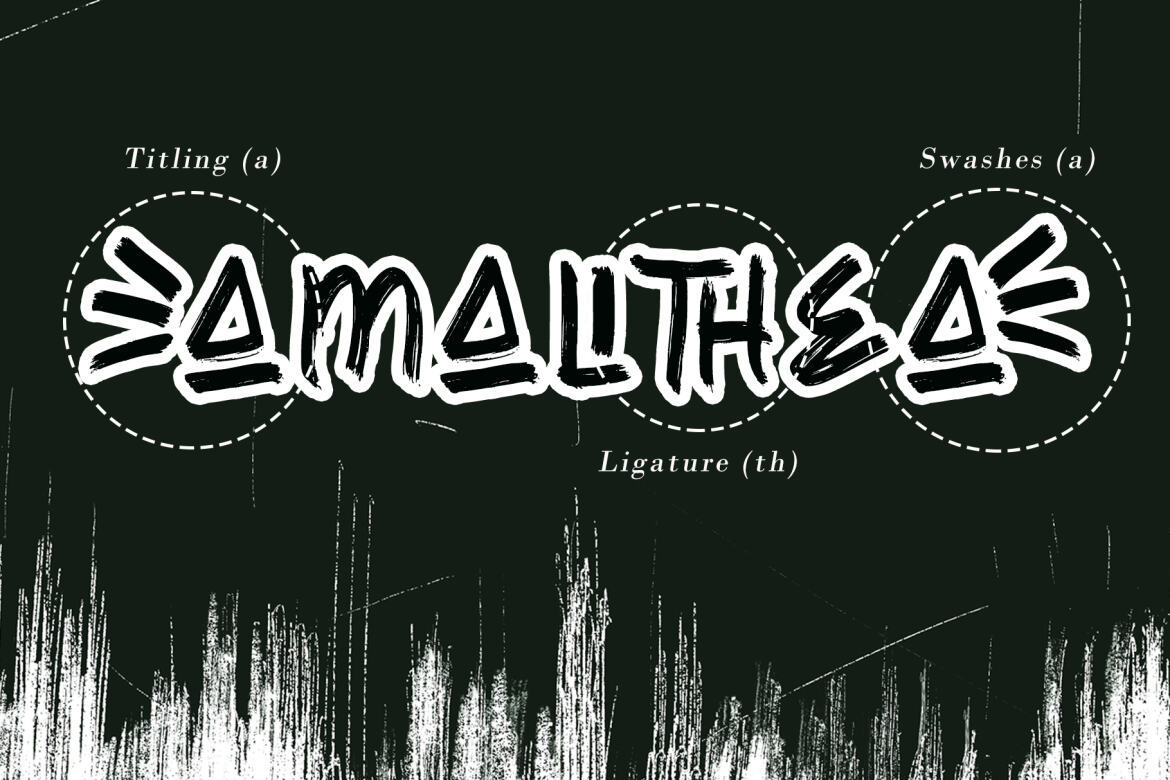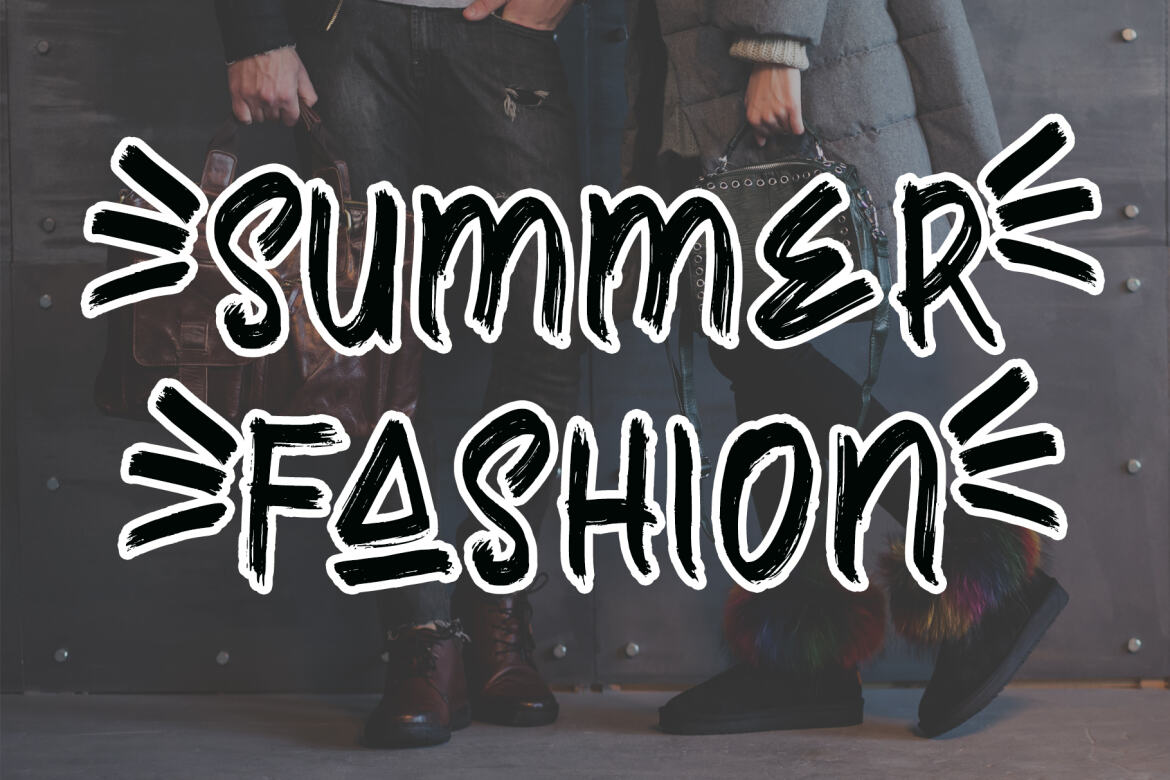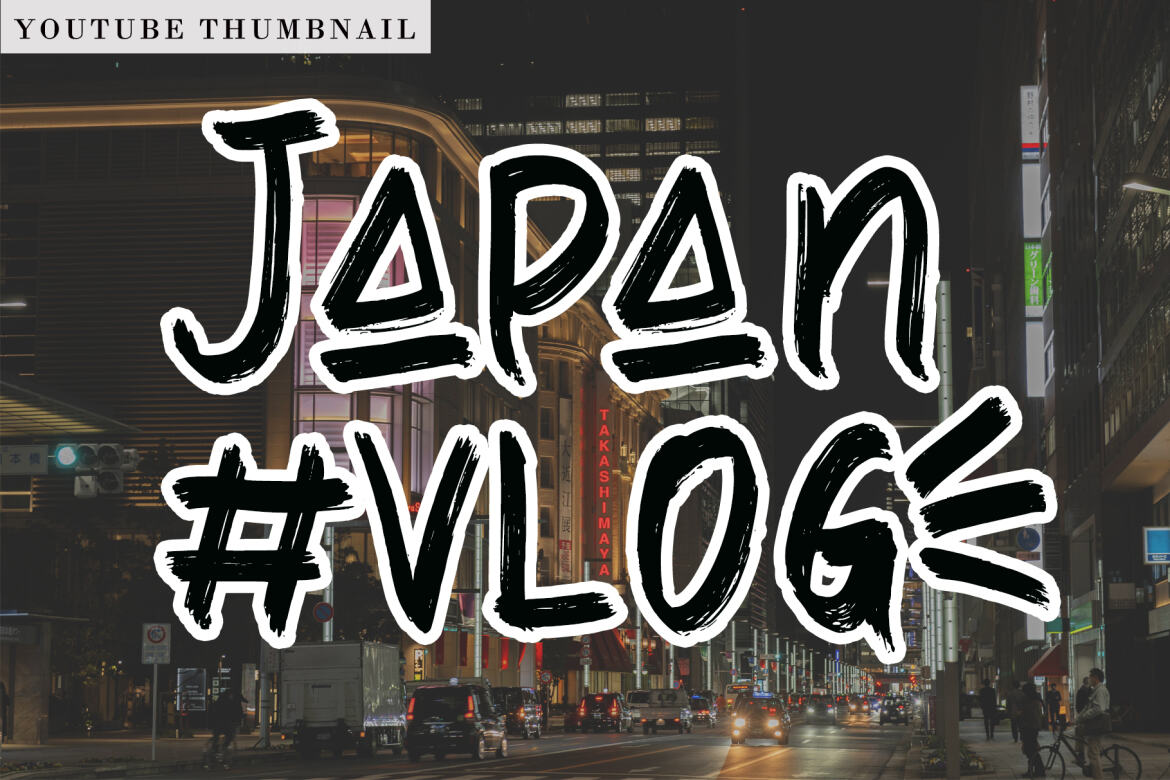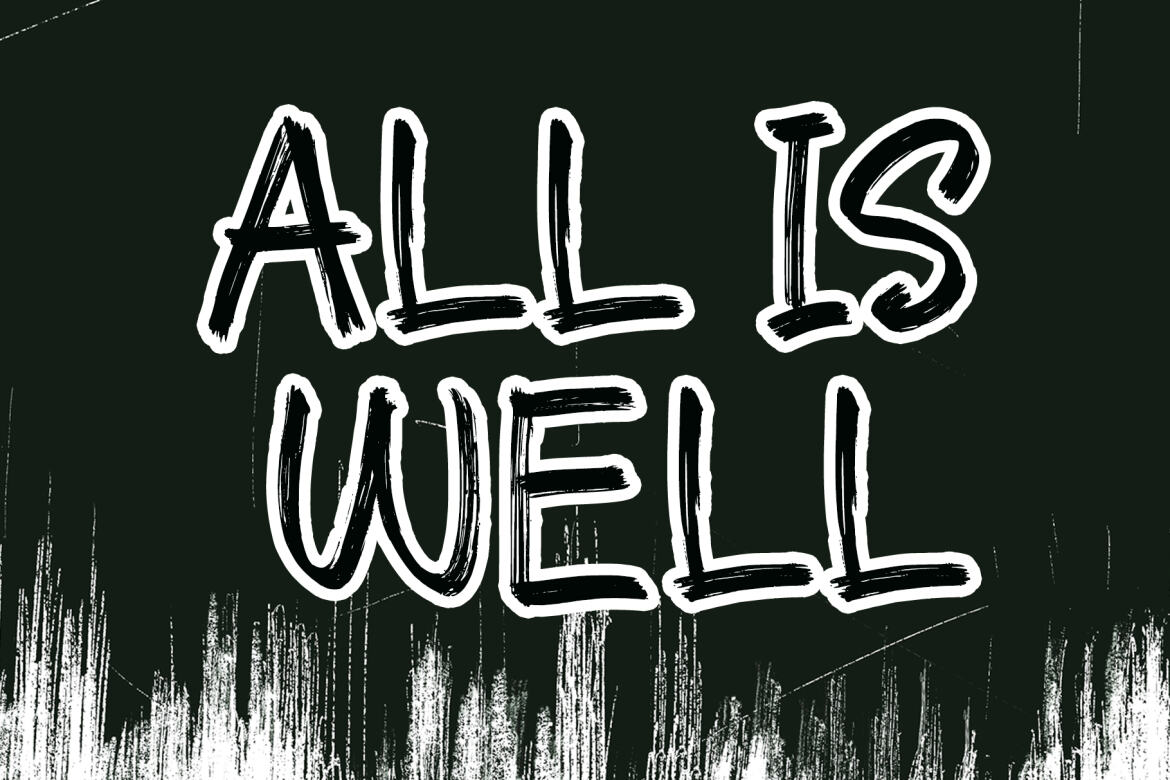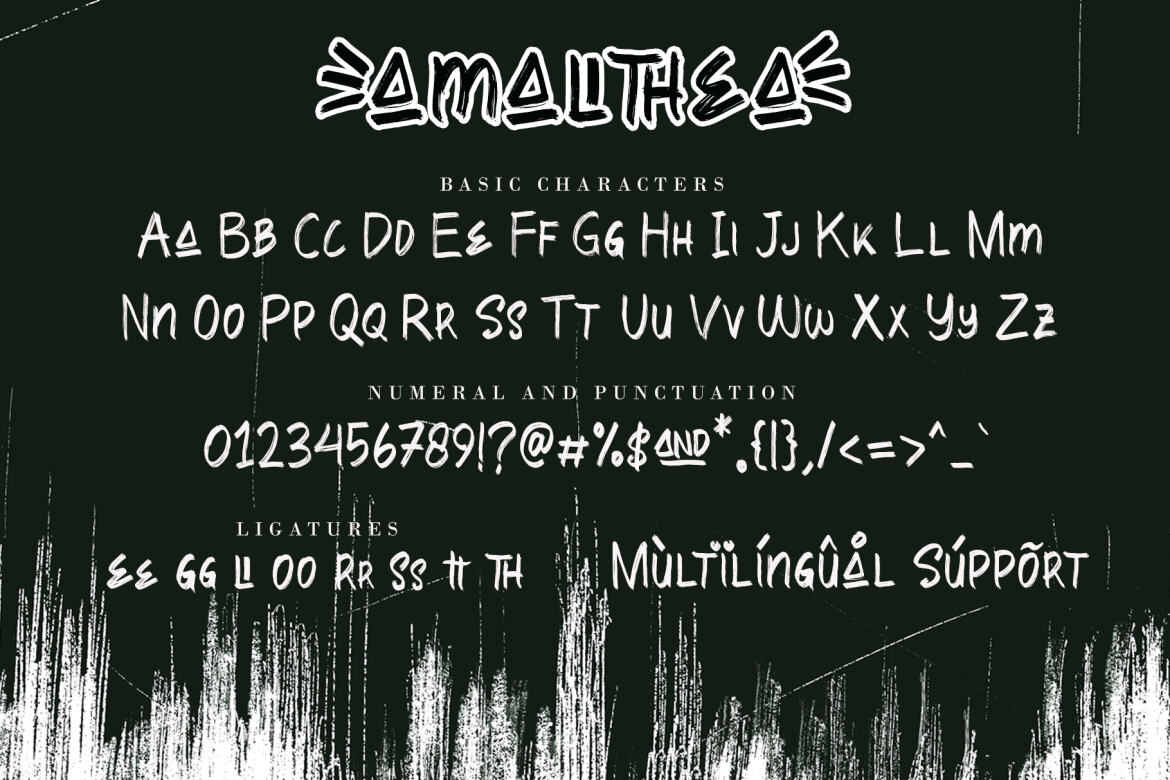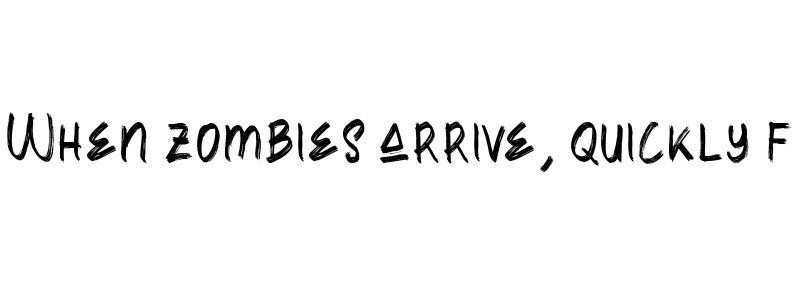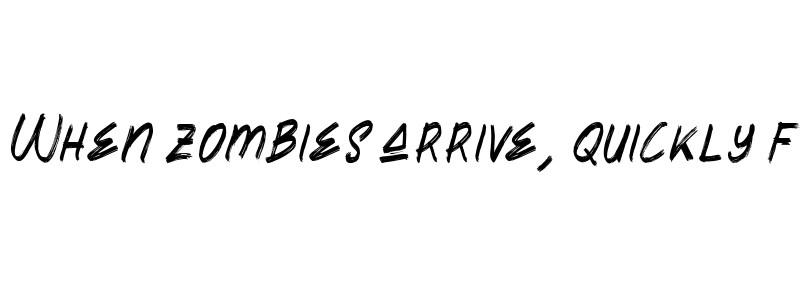
Amallthea FREE Natural Brush Font
Amallthea is natural dry brush font. It can be used for various purposes such as logos, quotes, posters, playful lettering, clothing, and every other design which needs a unique touch.
• ligatures, swashes & titiling
• support multilingual; ä ö ü ä ö ü ß ¿ ¡